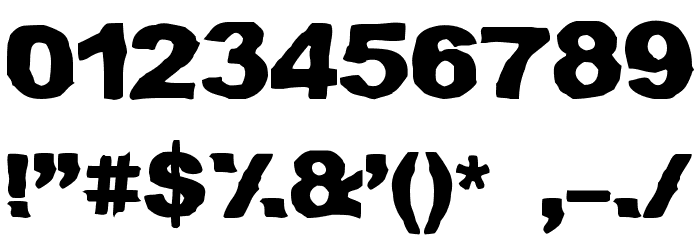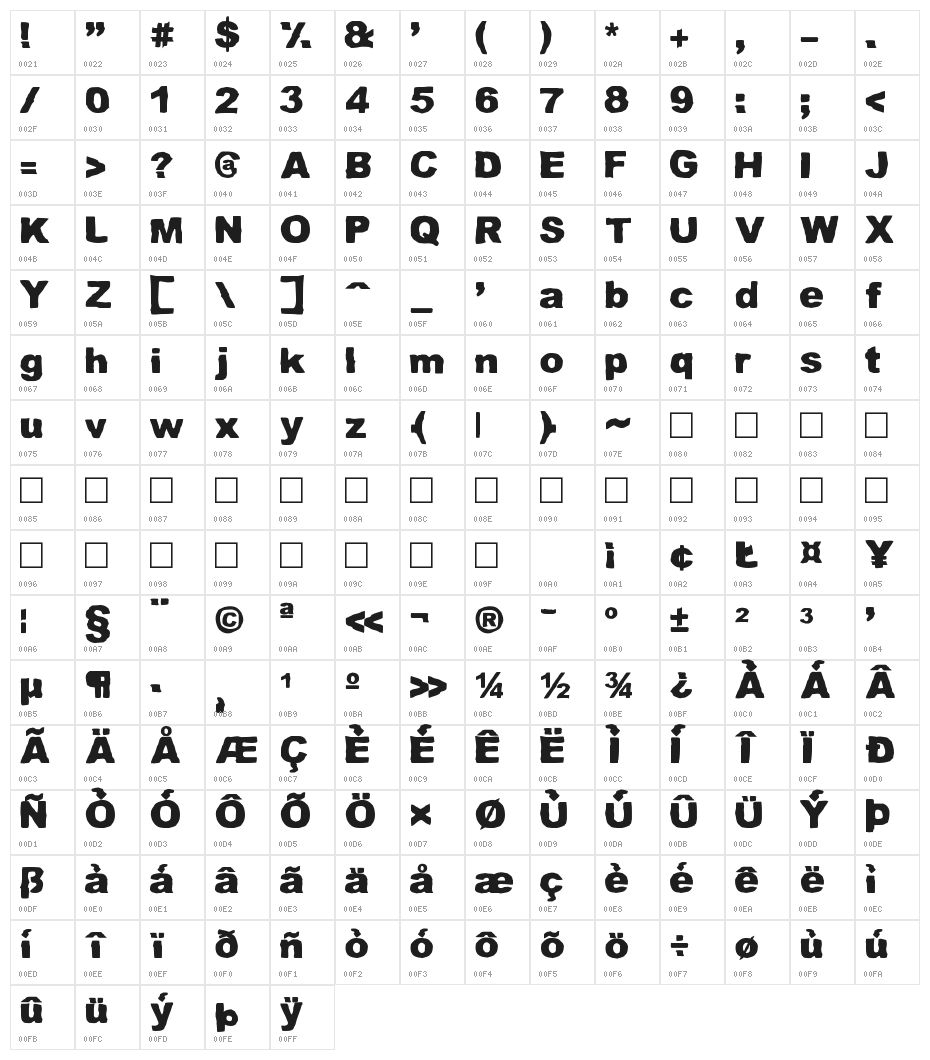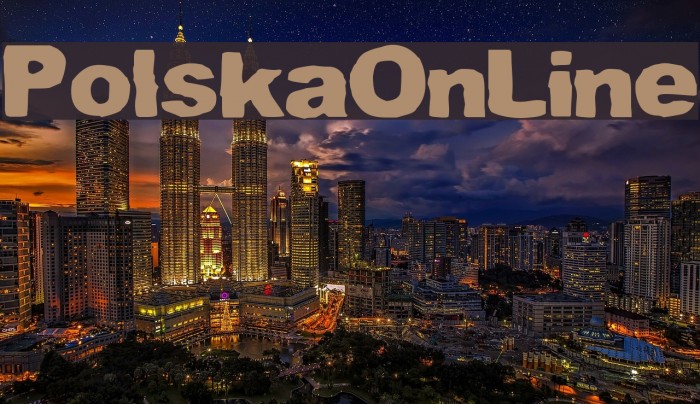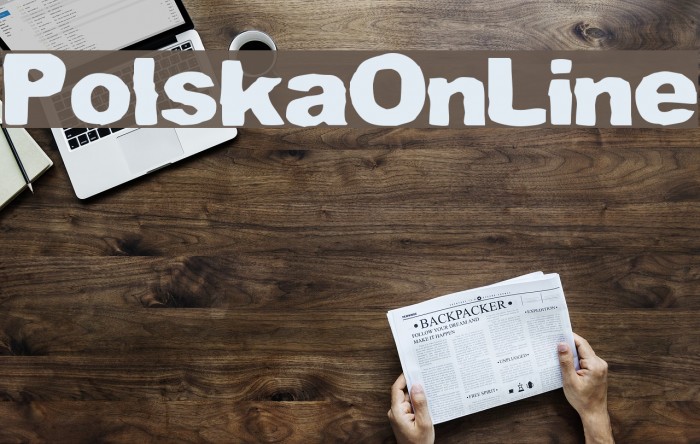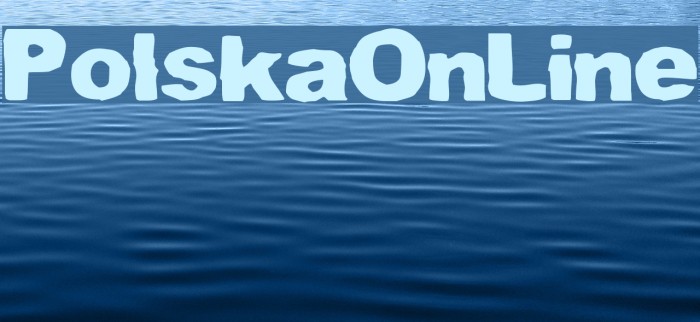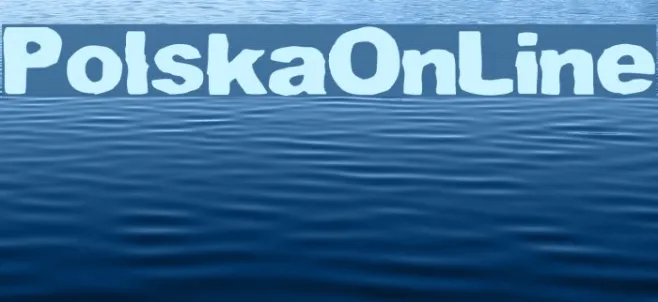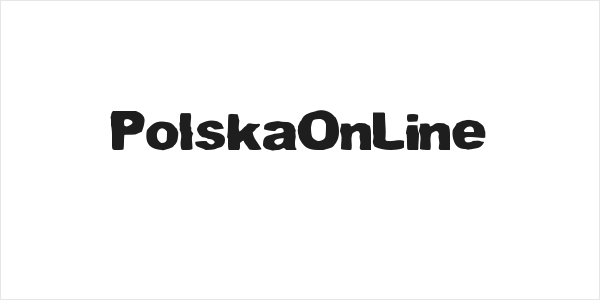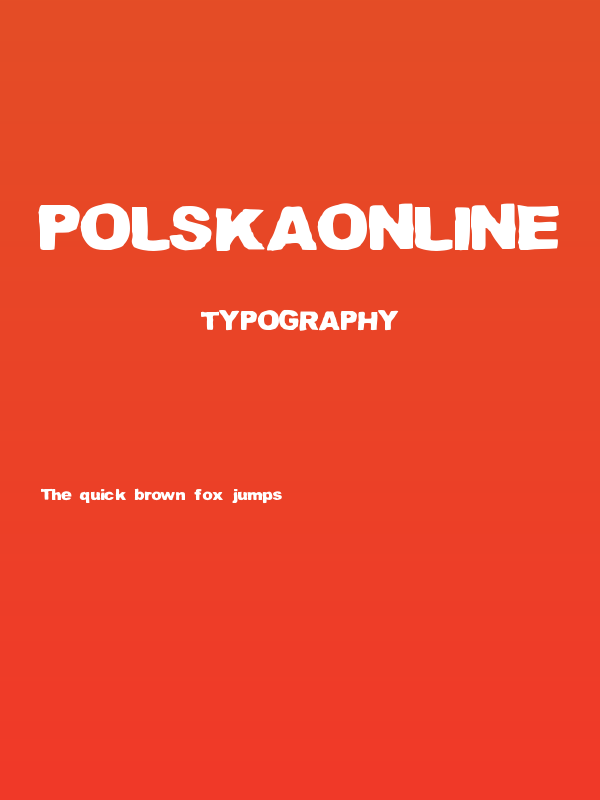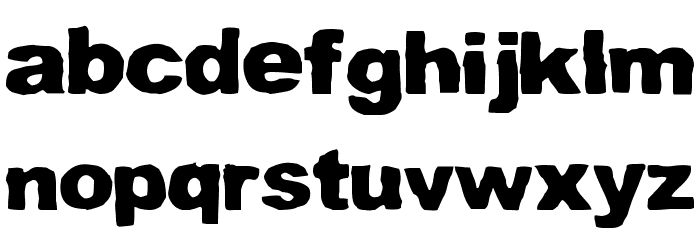
PolskaOnLine Font
PolskaOnLine Description
This font features a bold and rugged style with thick, uneven strokes that give it a hand-crafted appearance. The letters have a slightly distorted, organic feel, reminiscent of brush strokes or hand-drawn lettering. The uppercase and lowercase letters maintain a consistent weight, contributing to a cohesive look. The numbers and special characters follow the same bold and expressive design, making them stand out. This font's unique style is eye-catching and conveys a sense of strength and individuality.